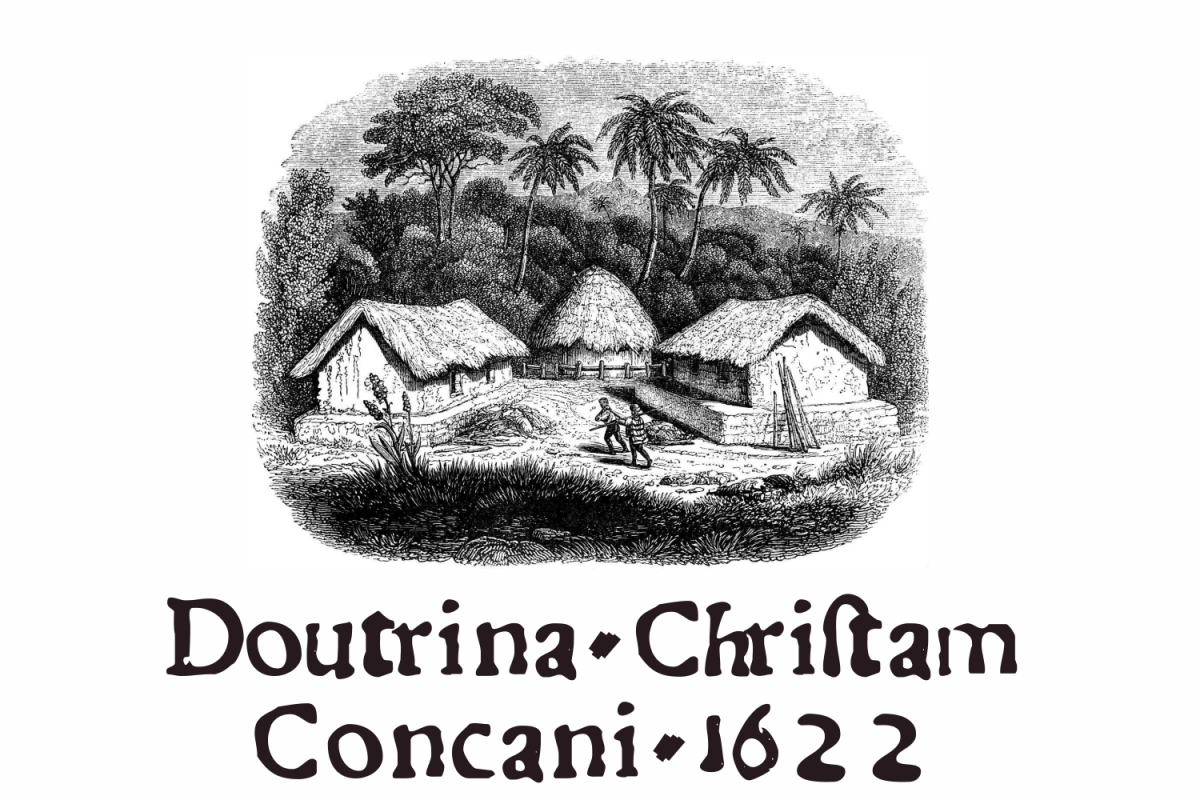
Dovtrina Christam Concani 1622
Digitization of the rough types used in "Christian doctrine in the Konkani language", by Father Thomas Stephens (1549-1619), jesuit of Society of Jesus. Your work was printed after his death in Rachol (Goa) em 1622.